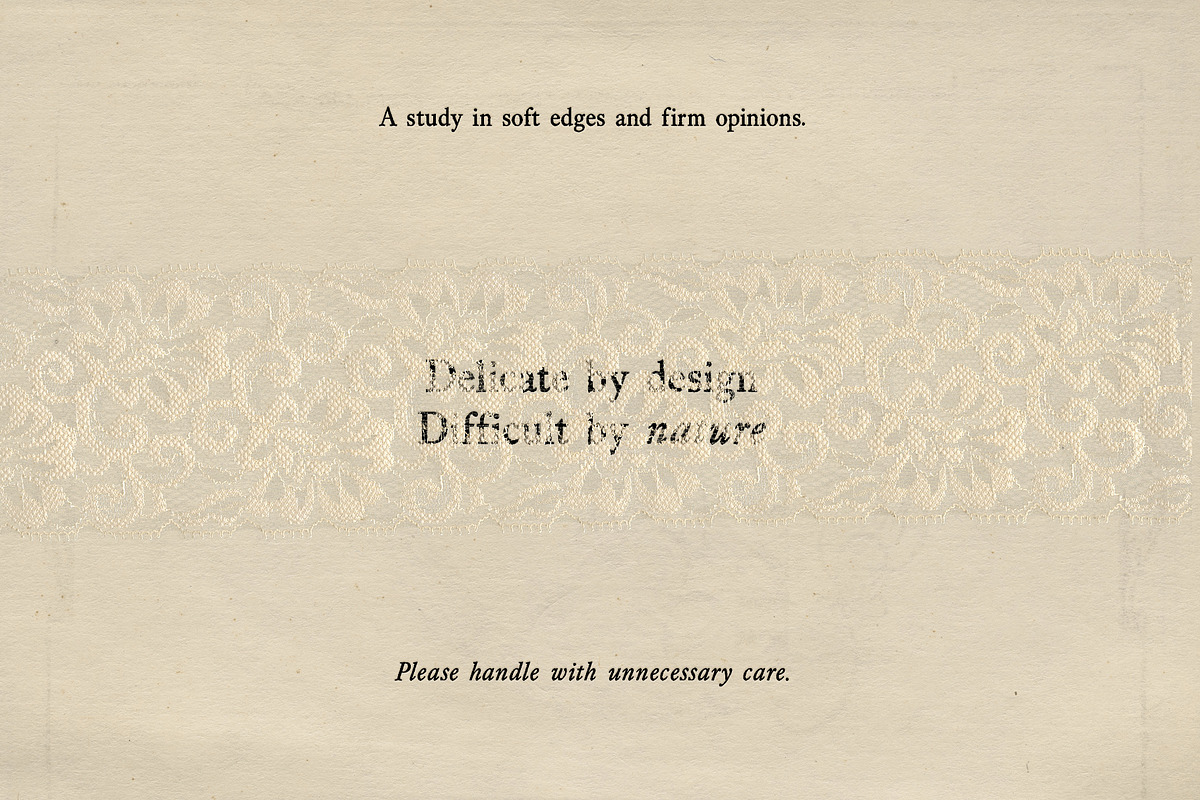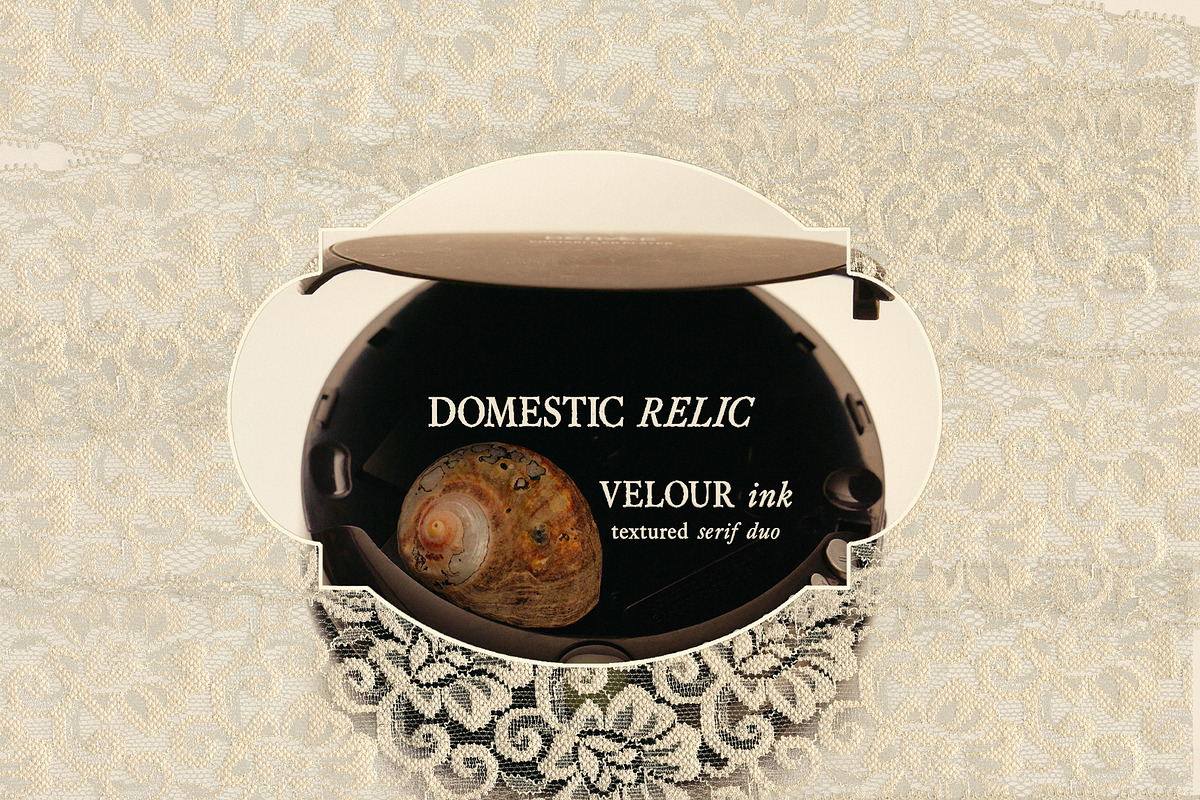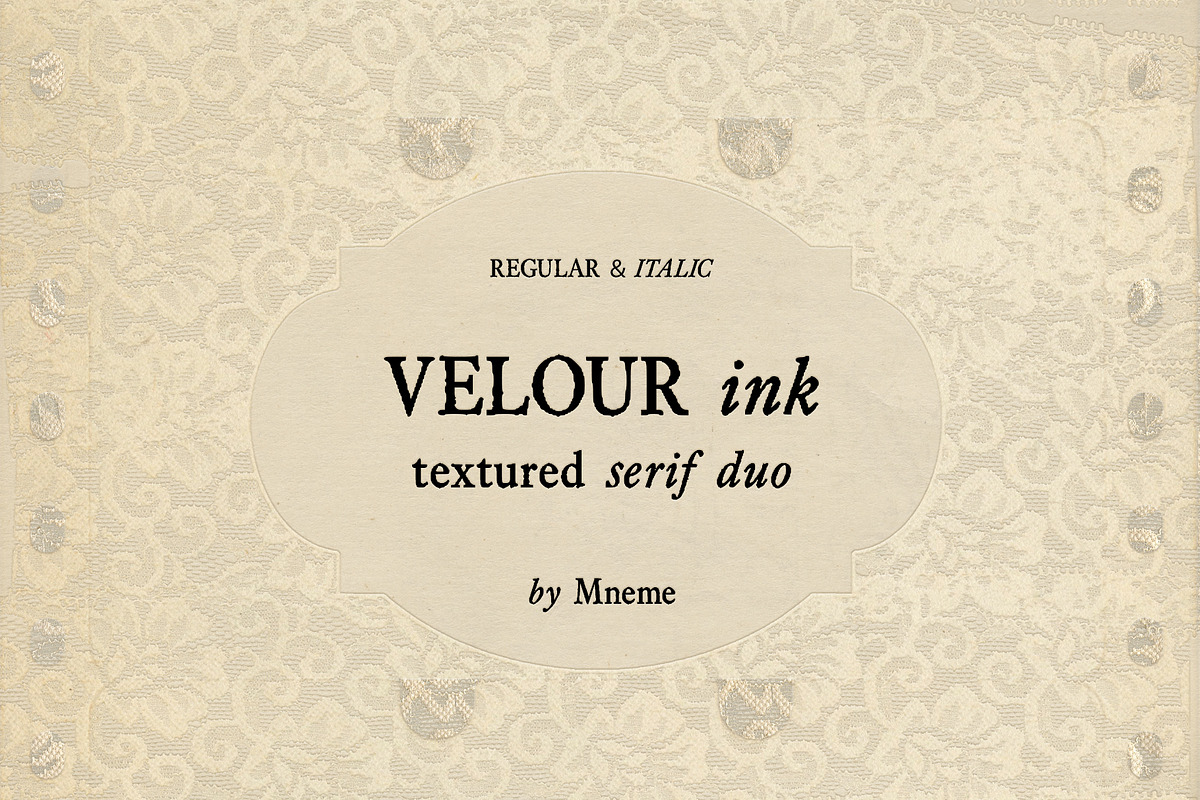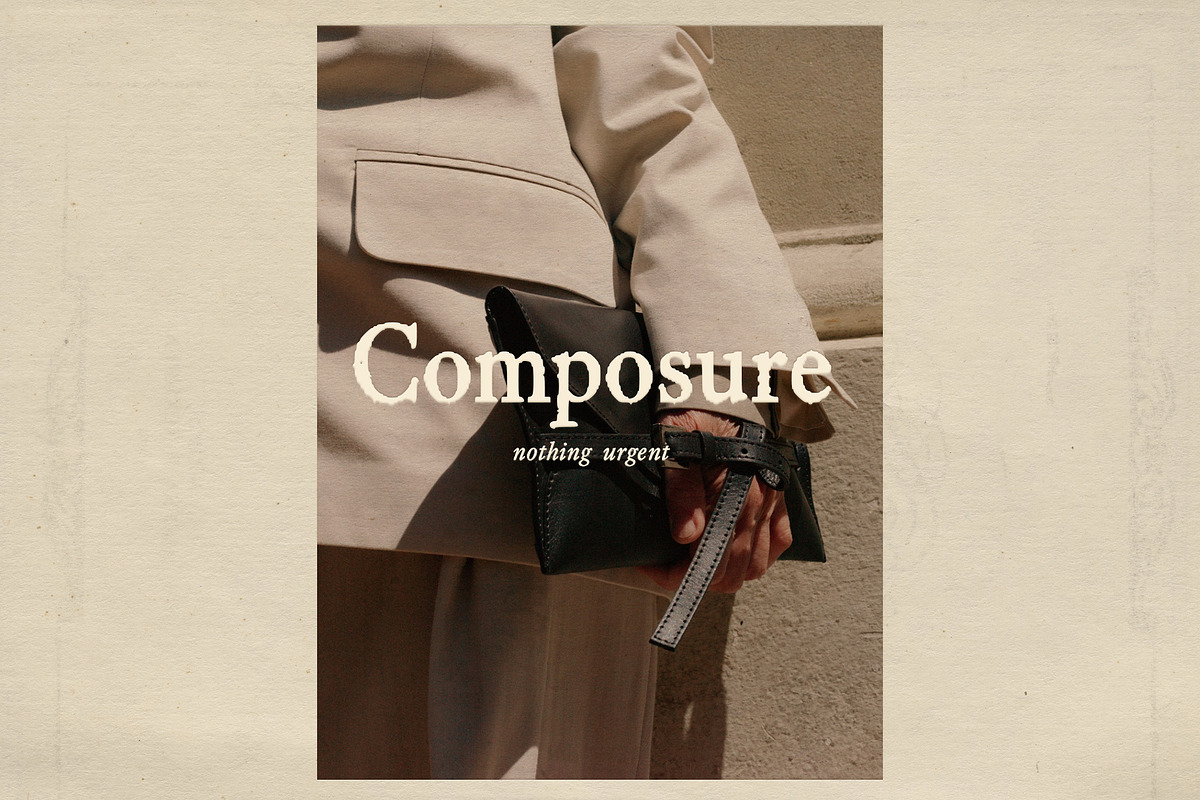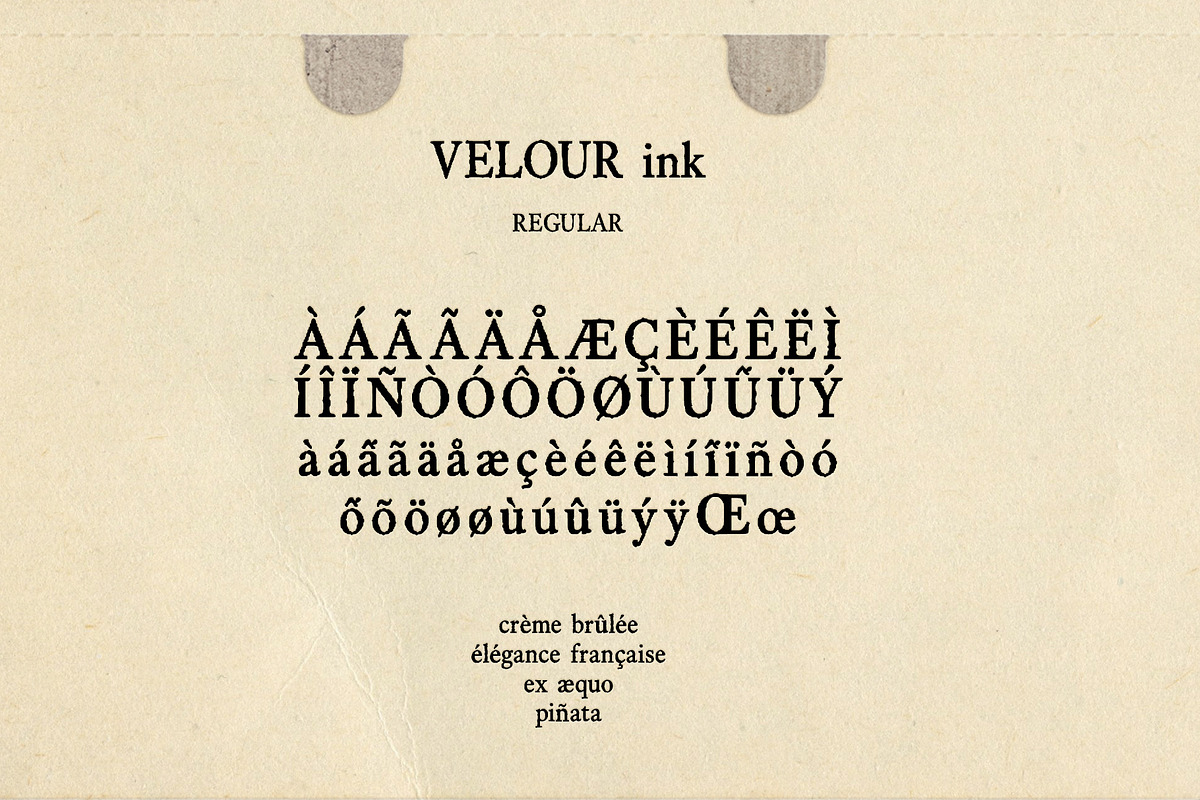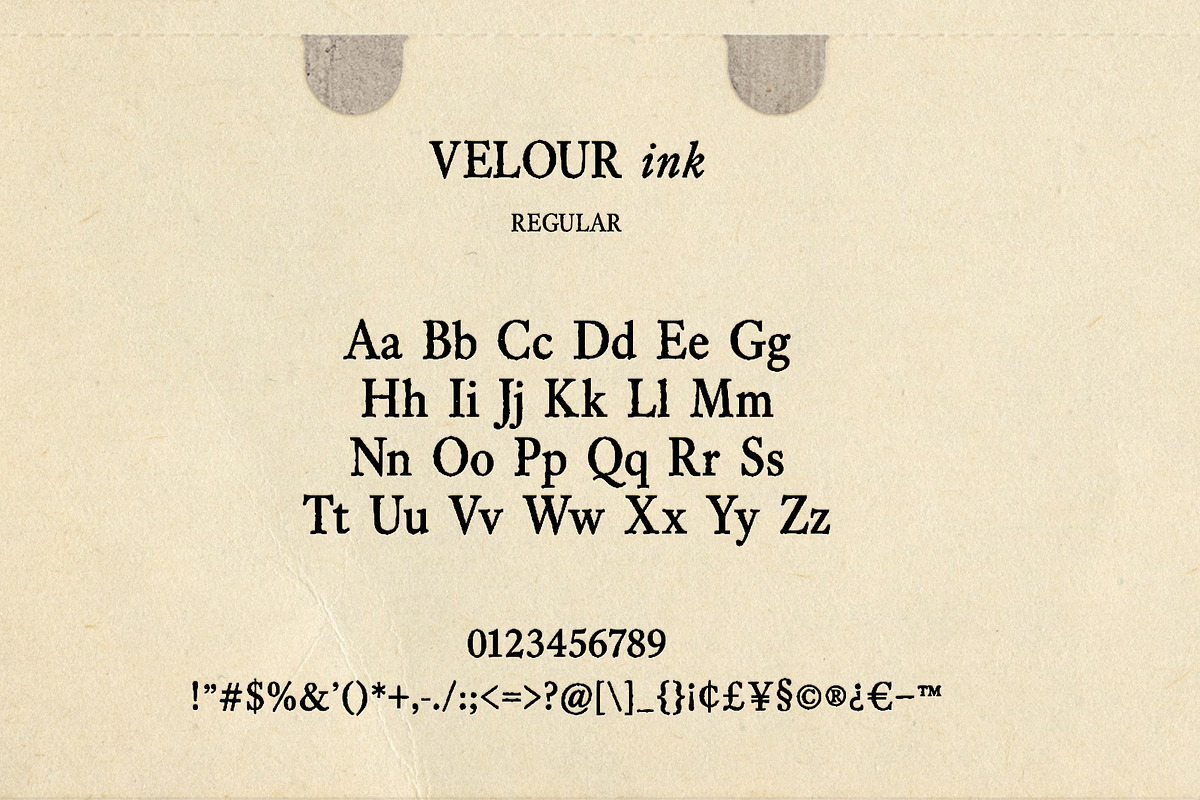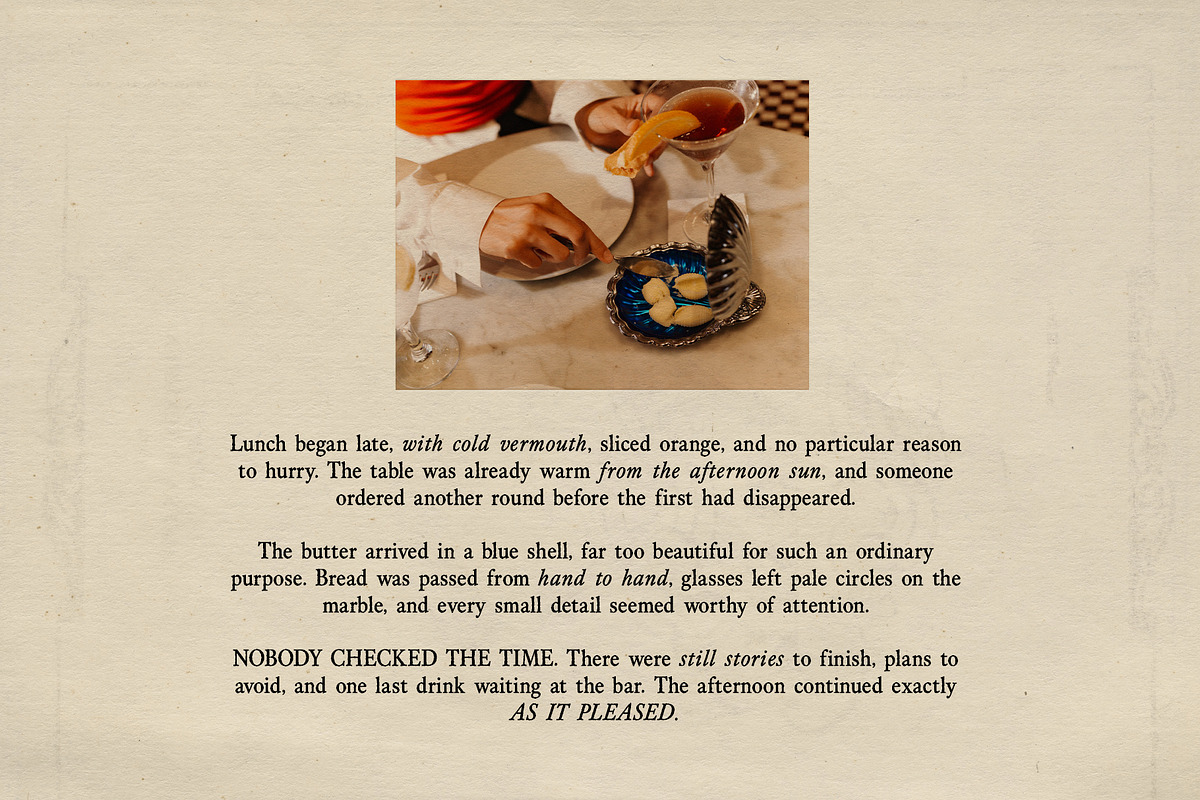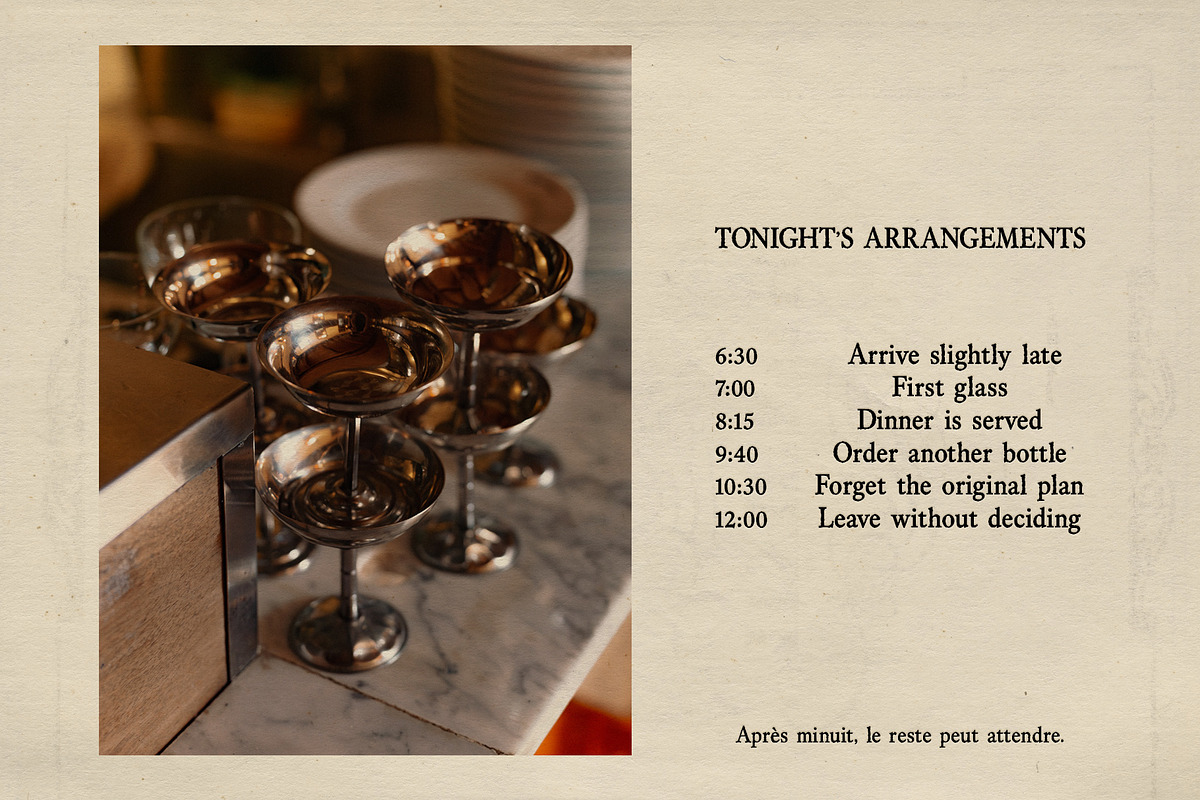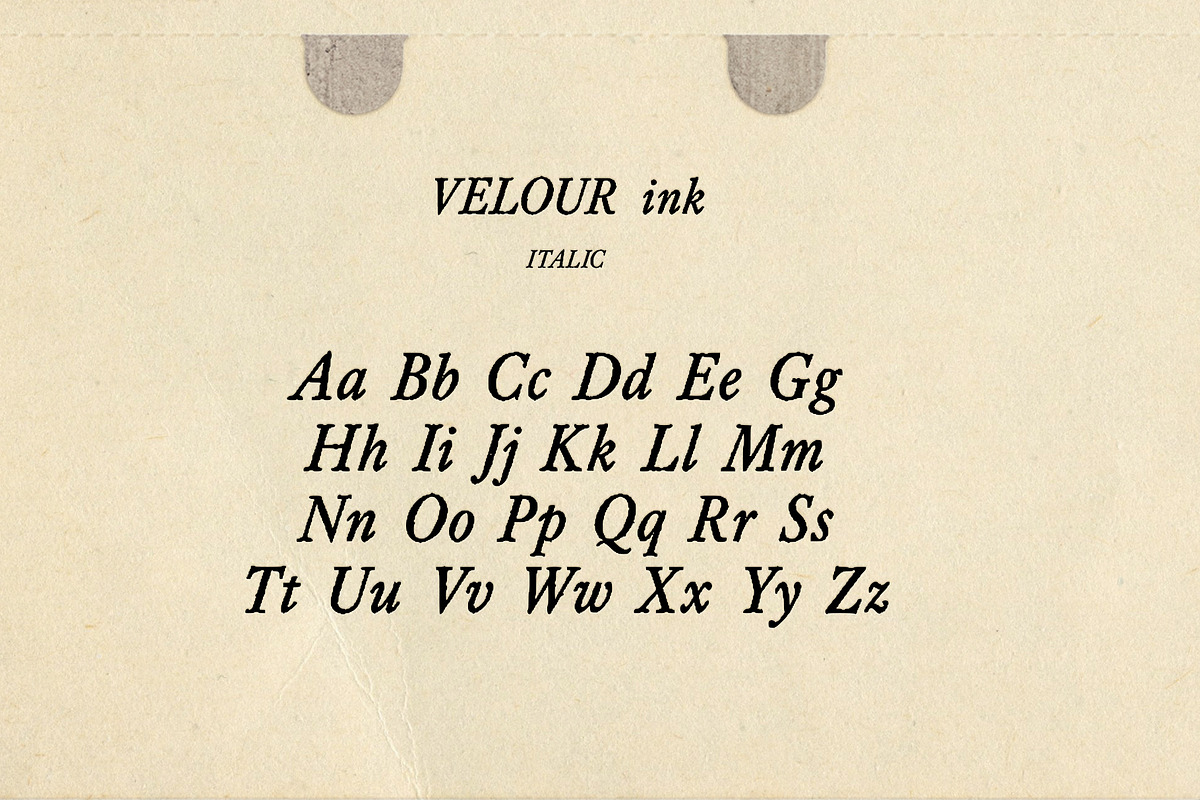
Velour Ink Textured Serif Duo
Velour Ink is a textured serif duo with the character of an old printed page.
The family pairs a structured Regular with an expressive Italic. Both styles feature naturally irregular inked edges while keeping the letterforms solid, clear, and easy to use.
Velour Ink feels refined without looking overly polished. Its tactile finish works especially well for editorial layouts, book covers, packaging, restaurant identities, fashion branding, invitations, menus, posters, and distinctive wordmarks.
Uppercase and lowercase letters
Numerals and punctuation
Extended Latin characters
Carefully matched Regular and Italic styles